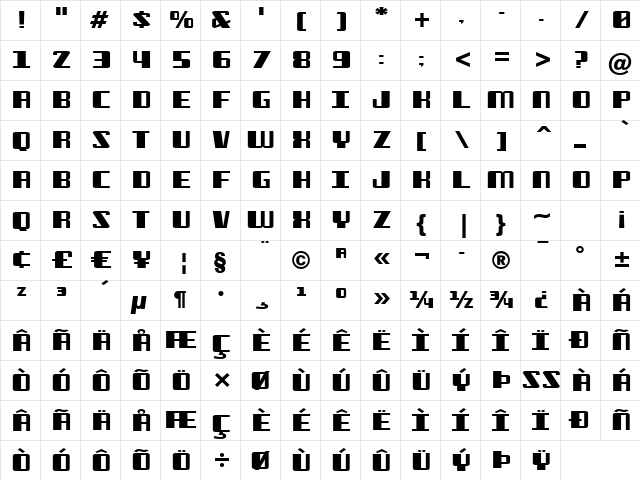
Freezer BTN Wide Regular
Design Context for Freezer BTN Wide Typeface
Freezer BTN Wide offers clean, dependable letterforms without strong stylistic allegiance, making it a practical choice for designers who need flexibility.